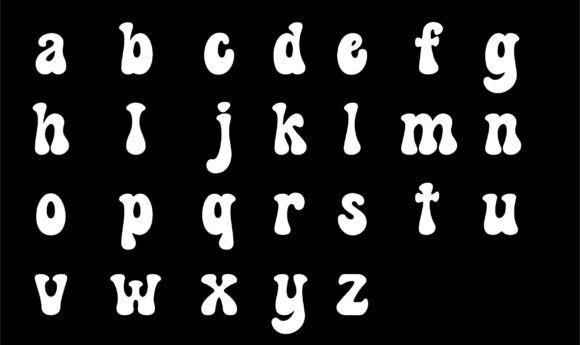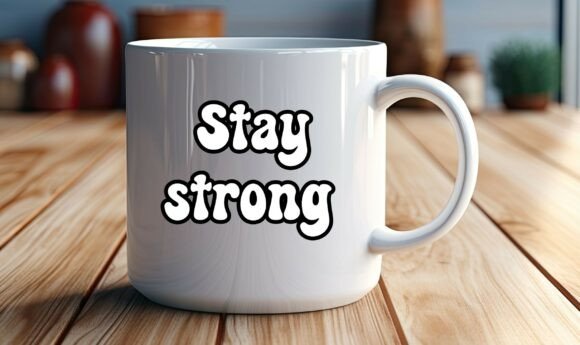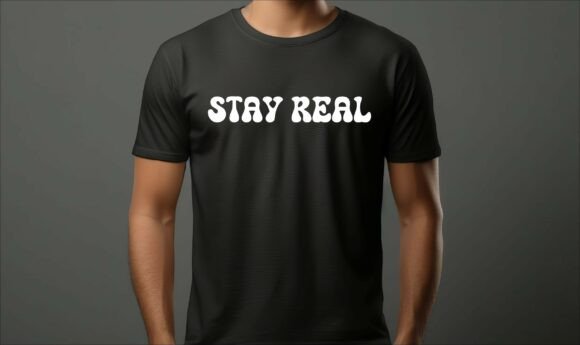
Unlocking the Magic of Your Next Creative Project with Magic Revival Font
Have you ever stumbled upon an old, dusty book in a thrift store, flipped through its yellowed pages, and been transported to a world of wonder and enchantment? For designers, this moment is a constant source of inspiration, a reminder that even the most mundane objects hold secrets and stories waiting to be uncovered. The same magic can be infused into your designs with the right font, and that’s where the Magic Revival Font comes in – a high-quality, bold, and stylish display font that blends retro charm with a modern magical twist.
Whether you’re working on a branding project, creating eye-catching posters, or designing promotional materials, the Magic Revival Font adds a touch of elegance, energy, and character to your work. And the best part? This versatile font is available for free download, making it a valuable design resource for any creative project. With its unique curves and strong letterforms, it’s perfect for designs that require a smooth and readable style, yet still pack a powerful visual punch.
Key Features of Magic Revival Font
- High-quality, unique design ideal for creative projects
- Perfect for designers seeking a distinctive design resource
- Includes 10 different font styles for added versatility
Honest Review: Magic Revival Font
As a designer, I’m always on the lookout for high-quality fonts that can elevate my creative projects. The Magic Revival Font is a recent find that’s caught my attention. With its free download option, it’s definitely worth exploring.
One of the standout features of the Magic Revival Font is its unique aesthetic. It’s perfect for designers who want to add a touch of whimsy to their work. The font’s transparent background also makes it easy to layer over other design elements.
Here are some of the things that work well with the Magic Revival Font:
- Unique and creative design
- Some users have reported issues with font consistency across different platforms
- Limited character set compared to other fonts
Overall, I’d say the Magic Revival Font is a solid design resource for designers looking to add some magic to their work. While it’s not perfect, its unique design and free download option make it worth considering.
The Magic Revival Font is commonly used in a variety of design projects, including wedding invitations, business cards, and brochures. It is also used in digital design projects such as social media graphics and website headers. The Magic Revival Font is a popular design resource that can add a touch of sophistication to any creative project.
Alternatives to Magic Revival Font
1. Vintage Revival Script
Vintage Revival Script is a beautiful, high-quality font perfect for creating a vintage or antique look in your creative project. It features elegant, flowing letters with a transparent background, making it ideal for use on images or backgrounds.
When to use: This font is great for projects that require a touch of nostalgia, such as wedding invitations, greeting cards, or vintage-inspired designs.
Comparison to Magic Revival Font: While both fonts have a similar vintage feel, Vintage Revival Script has a more elegant and refined look, making it a better choice for projects that require a touch of sophistication.